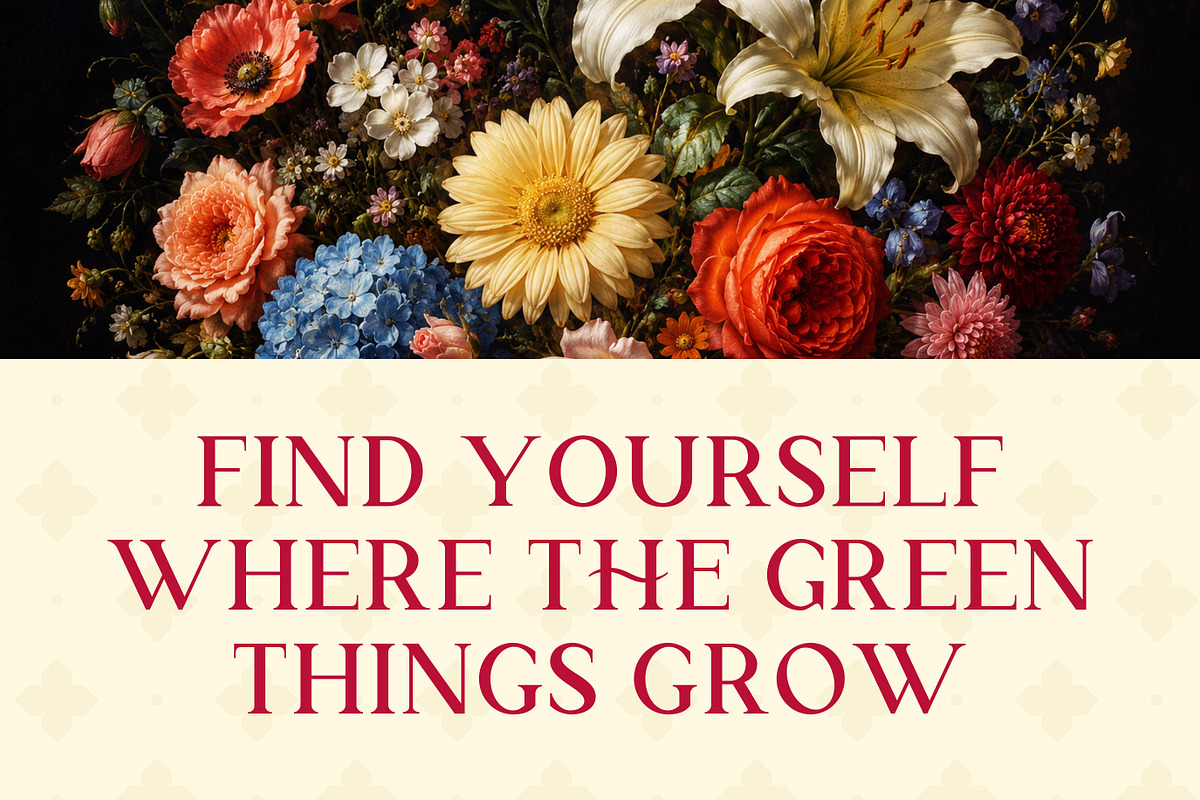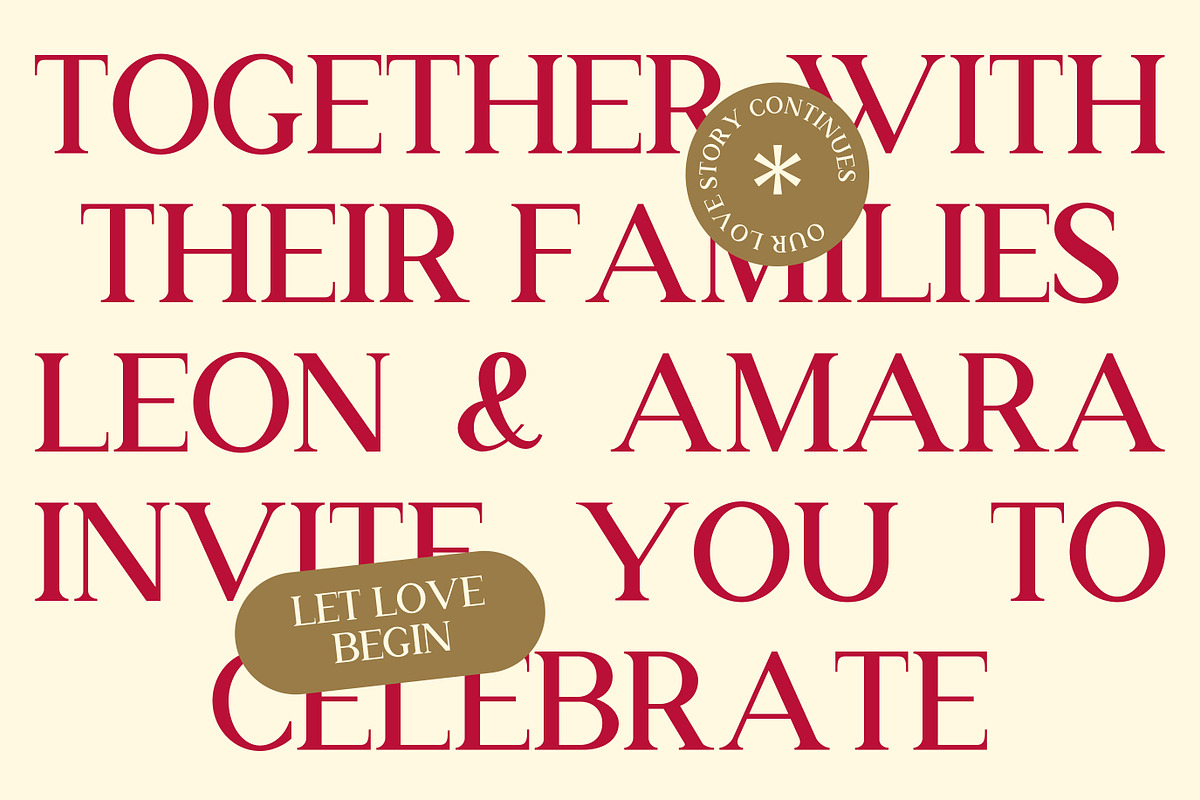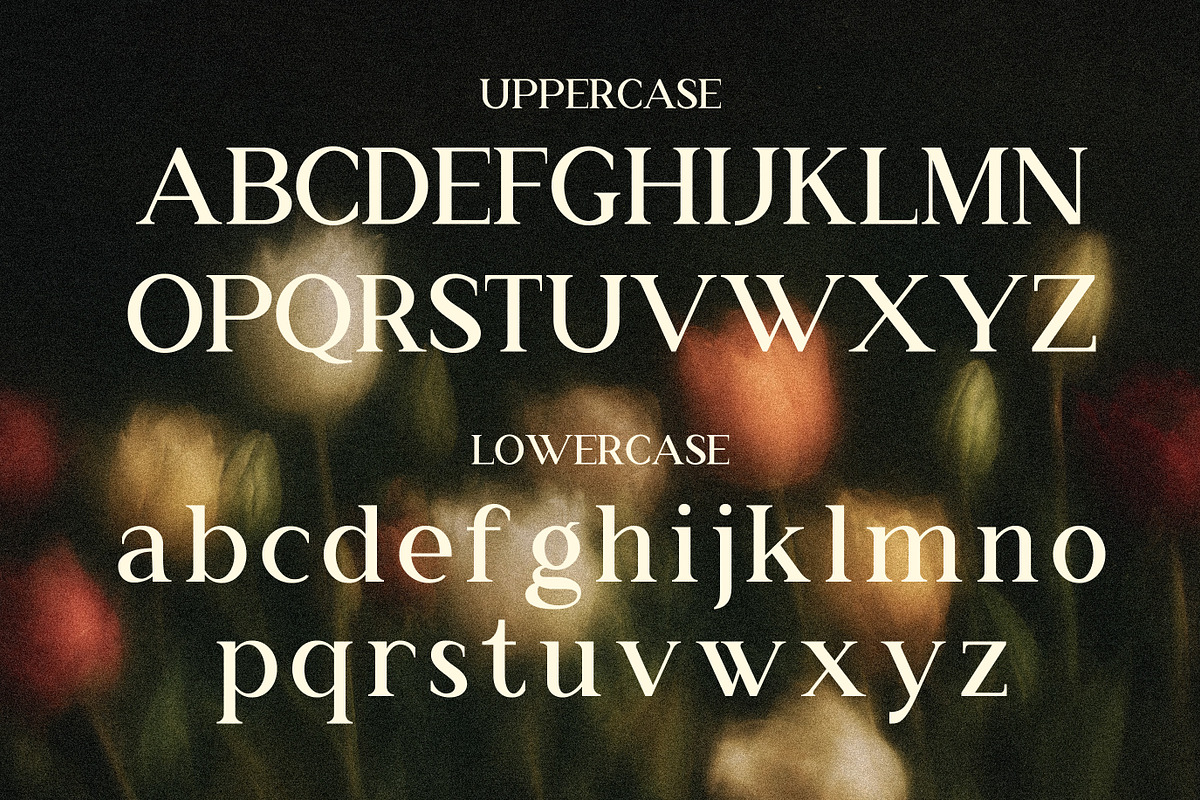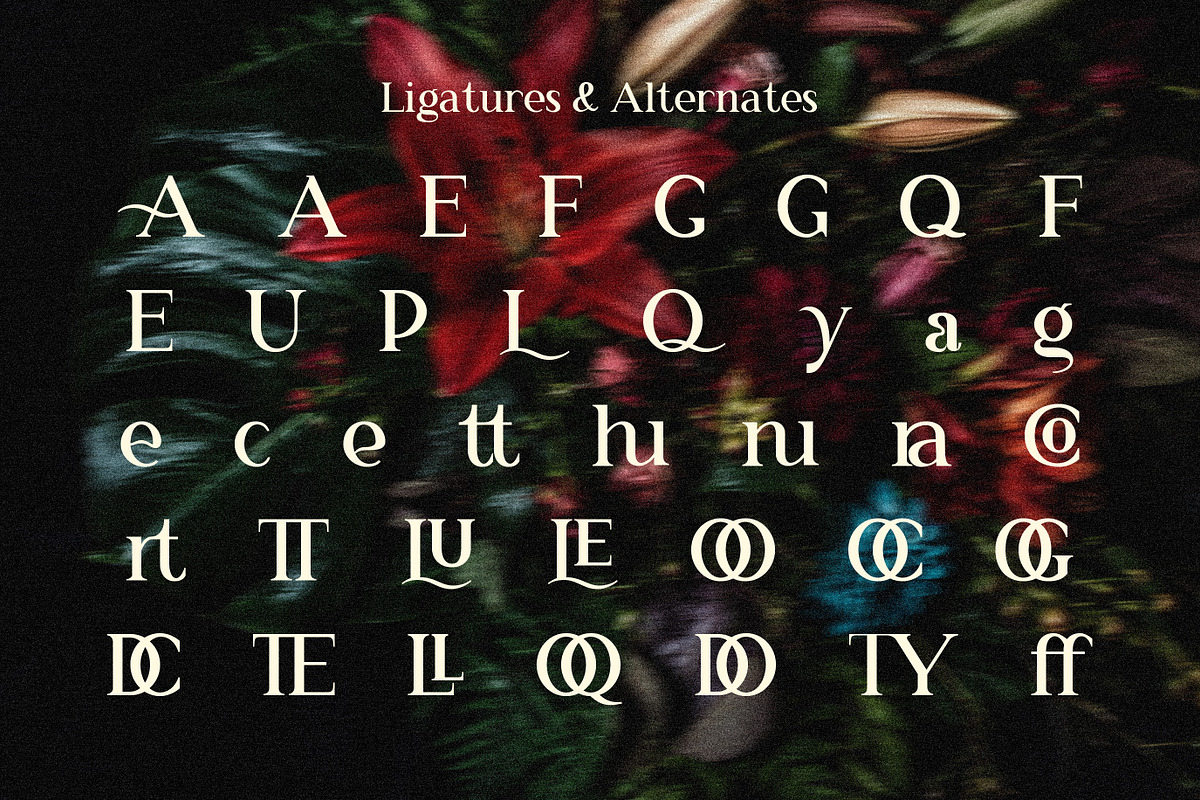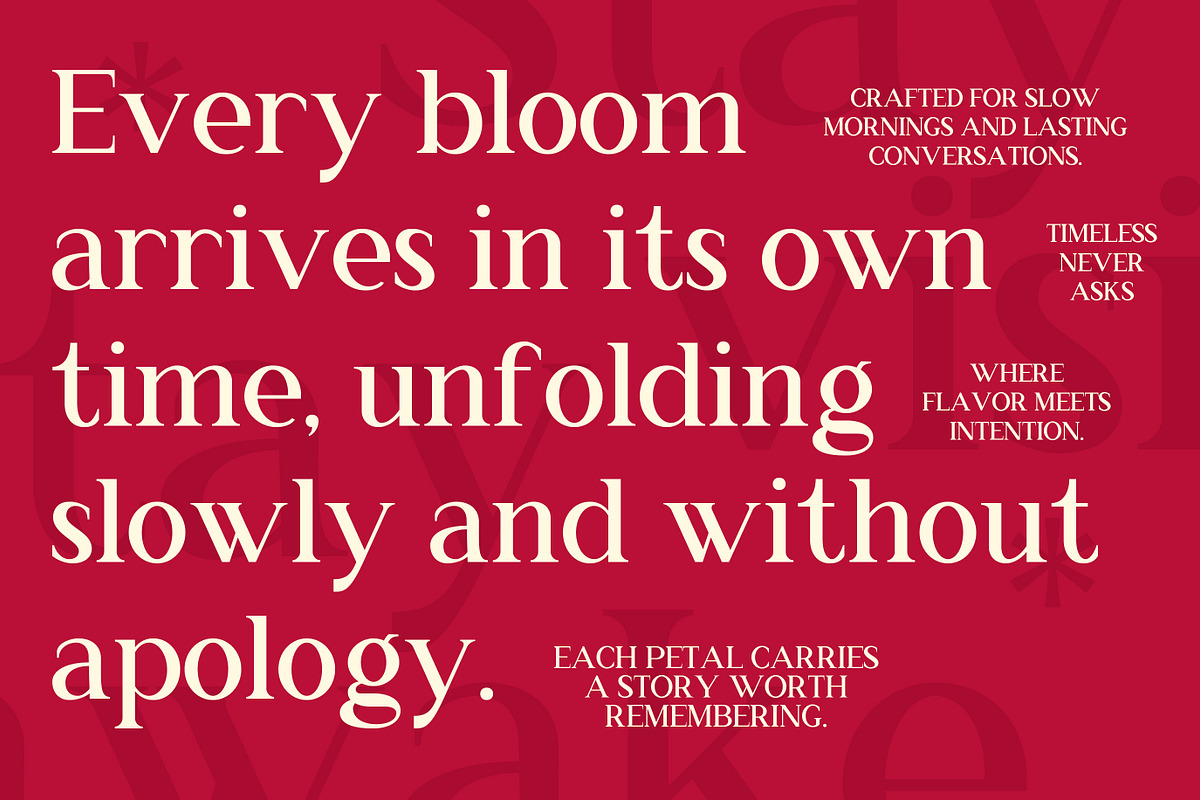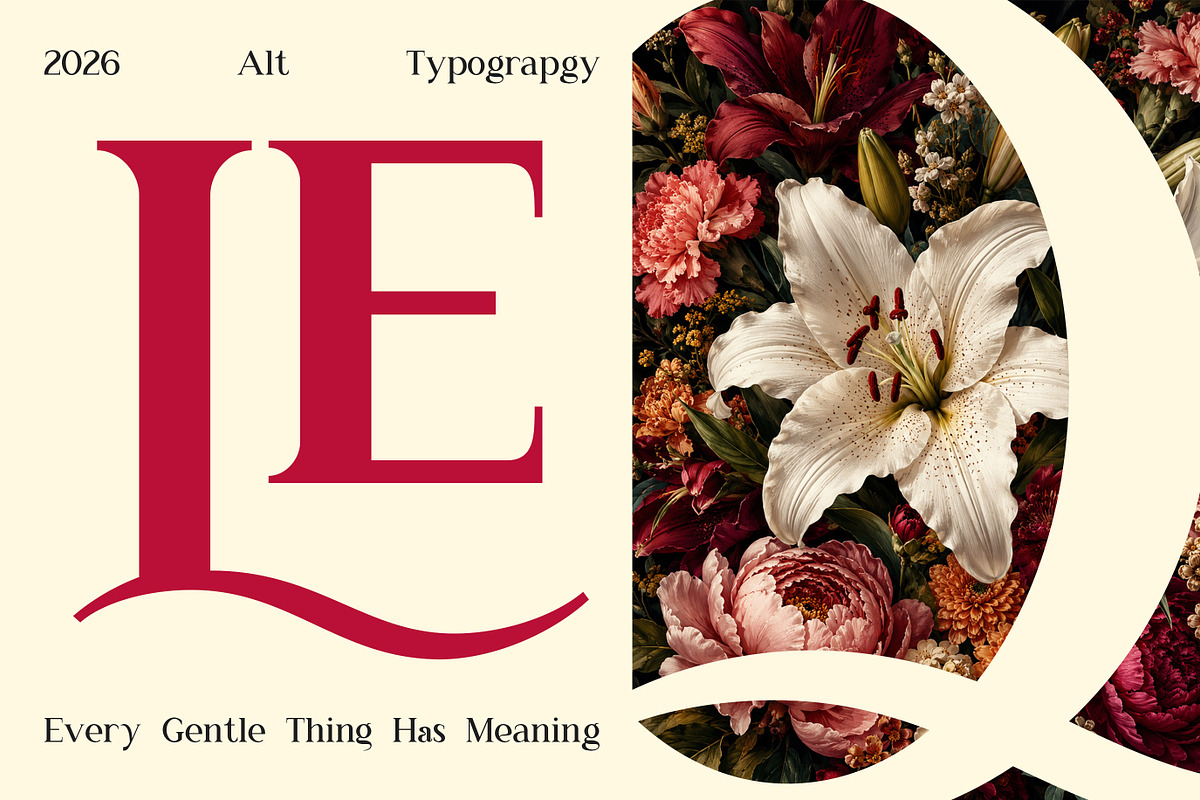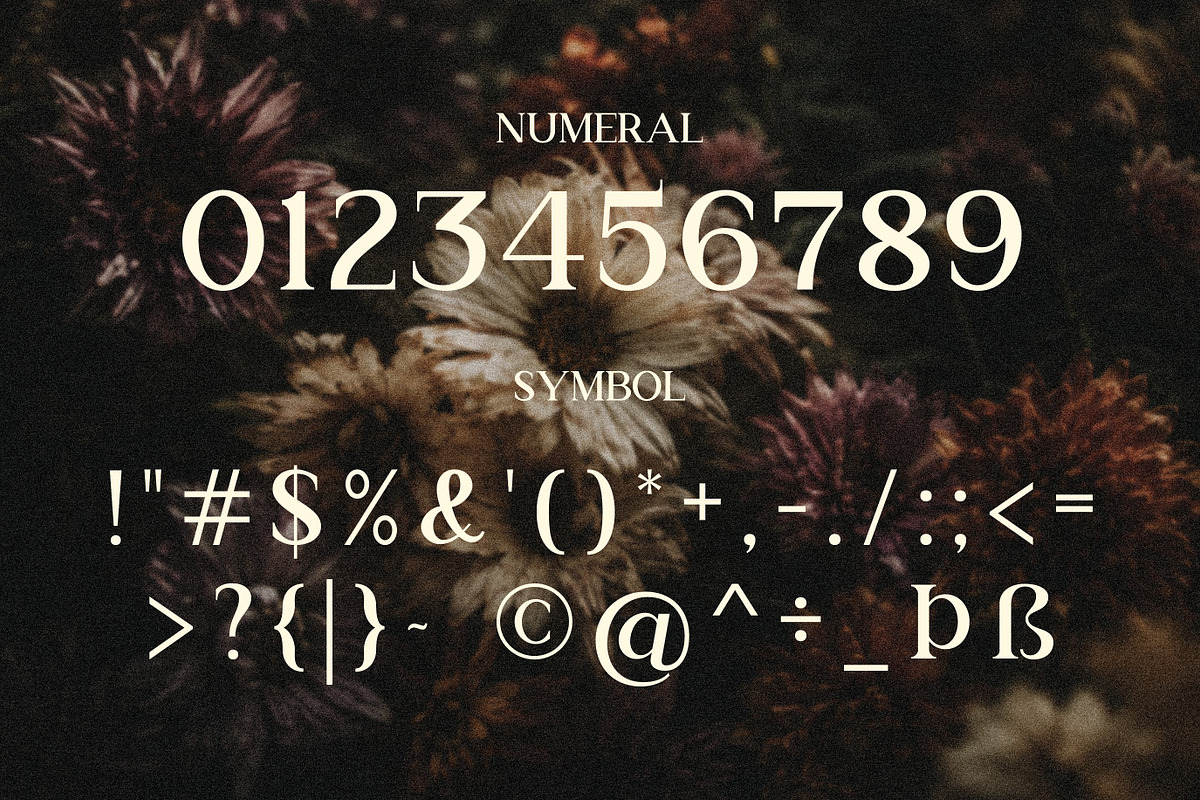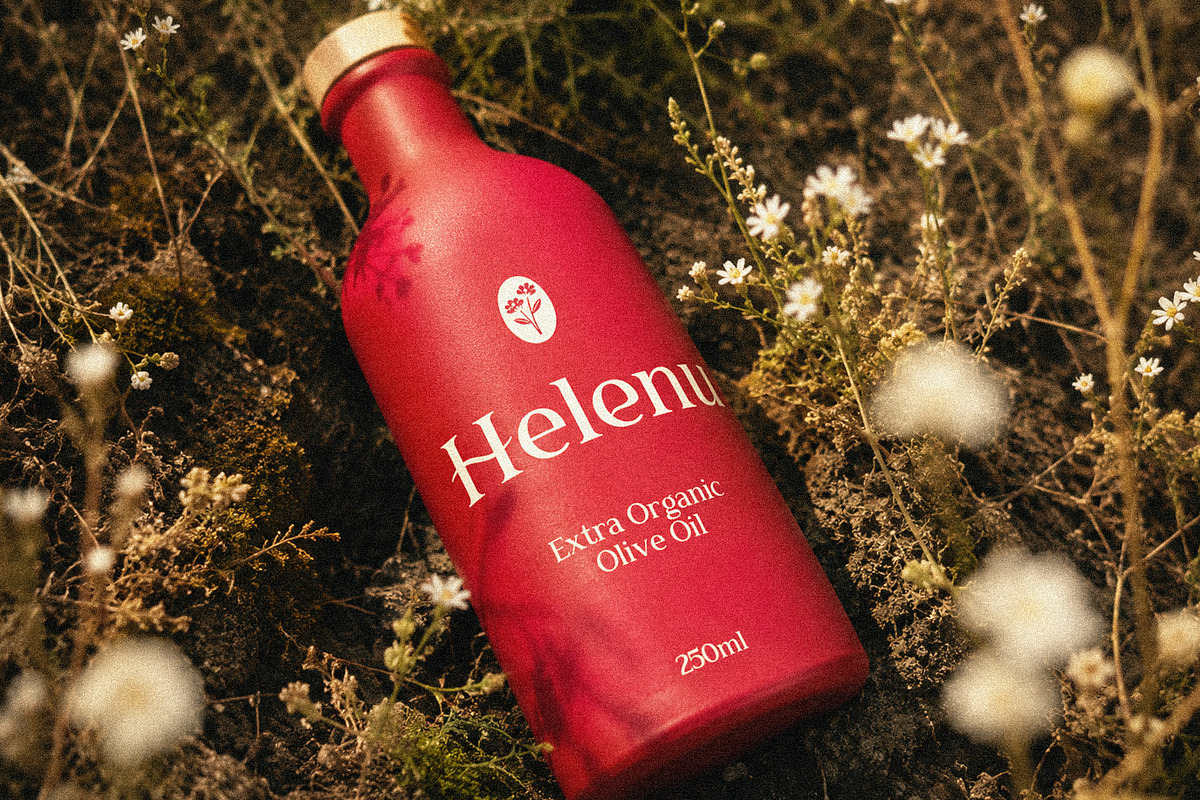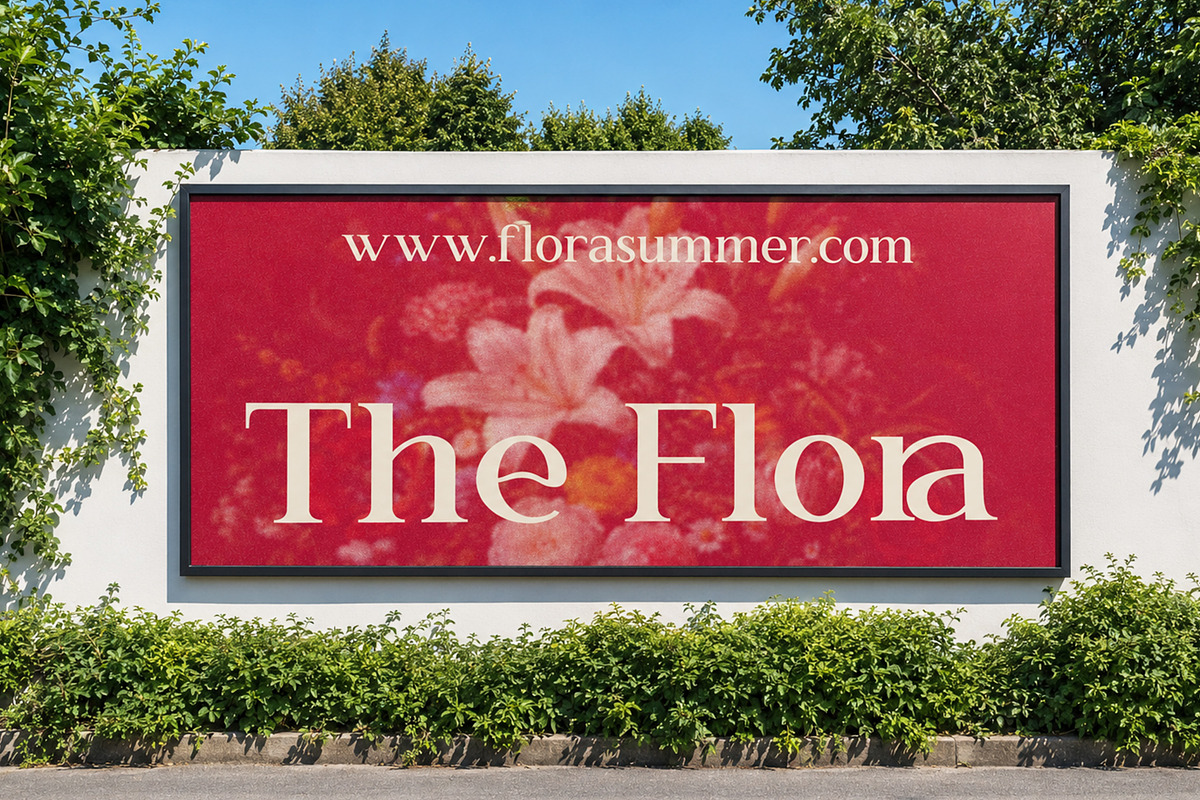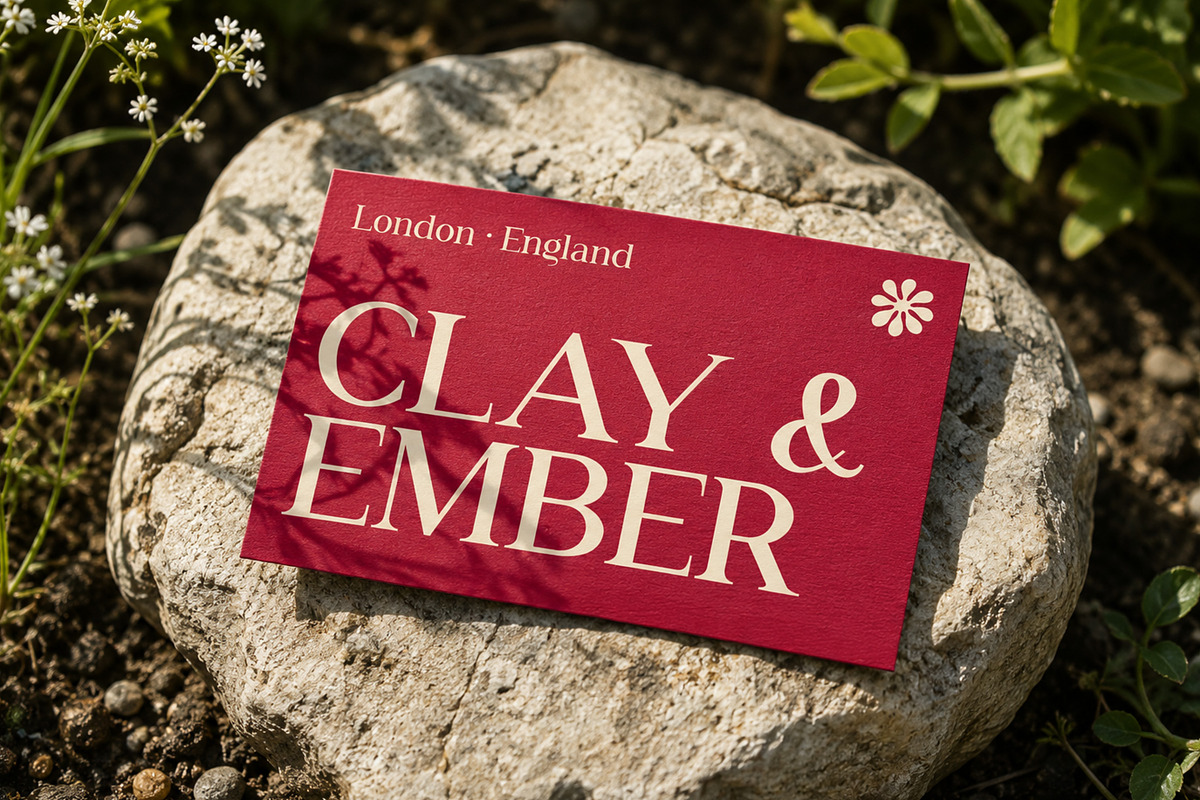
RS Djarum – New Classic Serif Font
RS Djarum is a new classic serif display typeface that channels the enduring beauty of traditional serif typography into a fresh, contemporary form. With its confident stroke contrast, refined letterforms, and a rich collection of 39 alternates and ligatures, RS Djarum brings a sense of timeless authority and botanical grace to any design it inhabits — whether sprawled across a wedding invitation, anchoring a premium product label, or commanding attention on an outdoor billboard.
Designed for creatives who value heritage without sacrificing modern sensibility, RS Djarum reads equally well at monumental display sizes and intimate body text, making it one of the most versatile classic serif fonts available for high-end visual work.